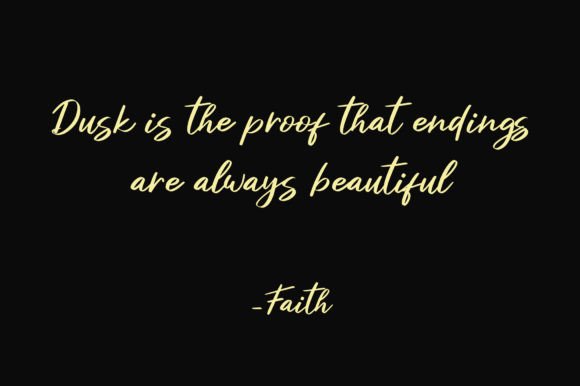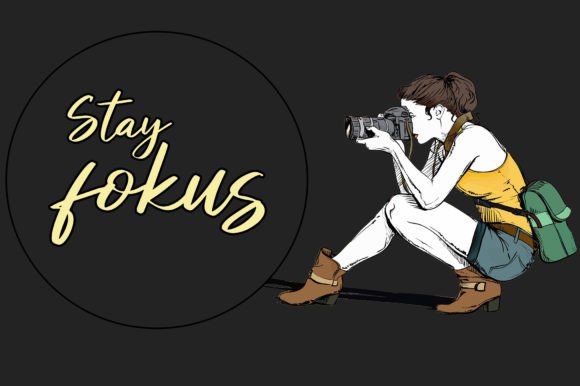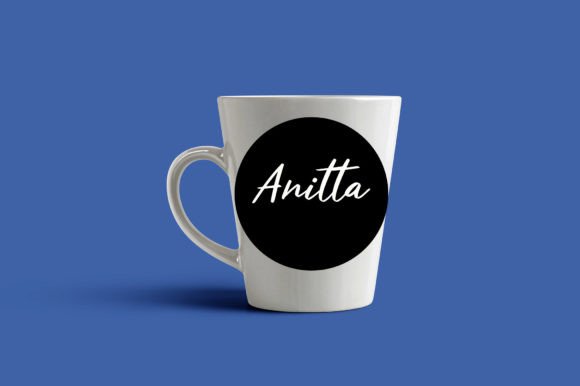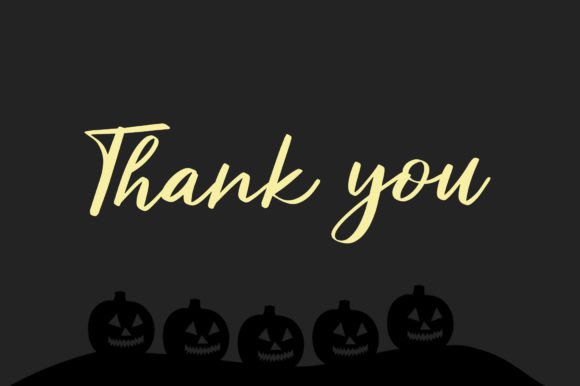
Halloween Font
About Halloween Font
Introducing “Halloween,” a fun and friendly handwritten font that brings a unique charm to any design. With its playful and approachable style, this font is designed to turn any idea into a true standout, infusing a sense of fun and creativity into your projects.
The friendly nature of “Halloween” makes it an excellent choice for a variety of designs where a lighthearted and casual vibe is desired. From Halloween-themed projects to everyday designs that could use a touch of whimsy, this font adds a delightful flair.
Get inspired by the distinct charm of “Halloween” as you explore its creative possibilities. Whether you’re working on invitations, cards, social media graphics, or any other design project, this font becomes a playful tool to express your ideas.
The handwritten style of “Halloween” contributes to its authenticity and warmth. It’s not just a font; it’s an invitation to infuse your designs with a sense of fun and friendliness, creating a connection with your audience.
Let “Halloween” be the creative companion that transforms your design ideas into lovely and standout creations. Whether you’re designing for a specific theme or just want to add a playful touch to your work, this font is ready to bring a unique charm to your projects.